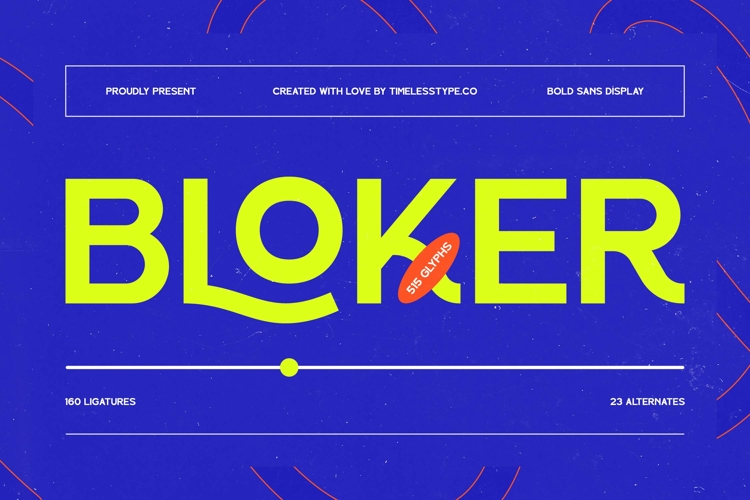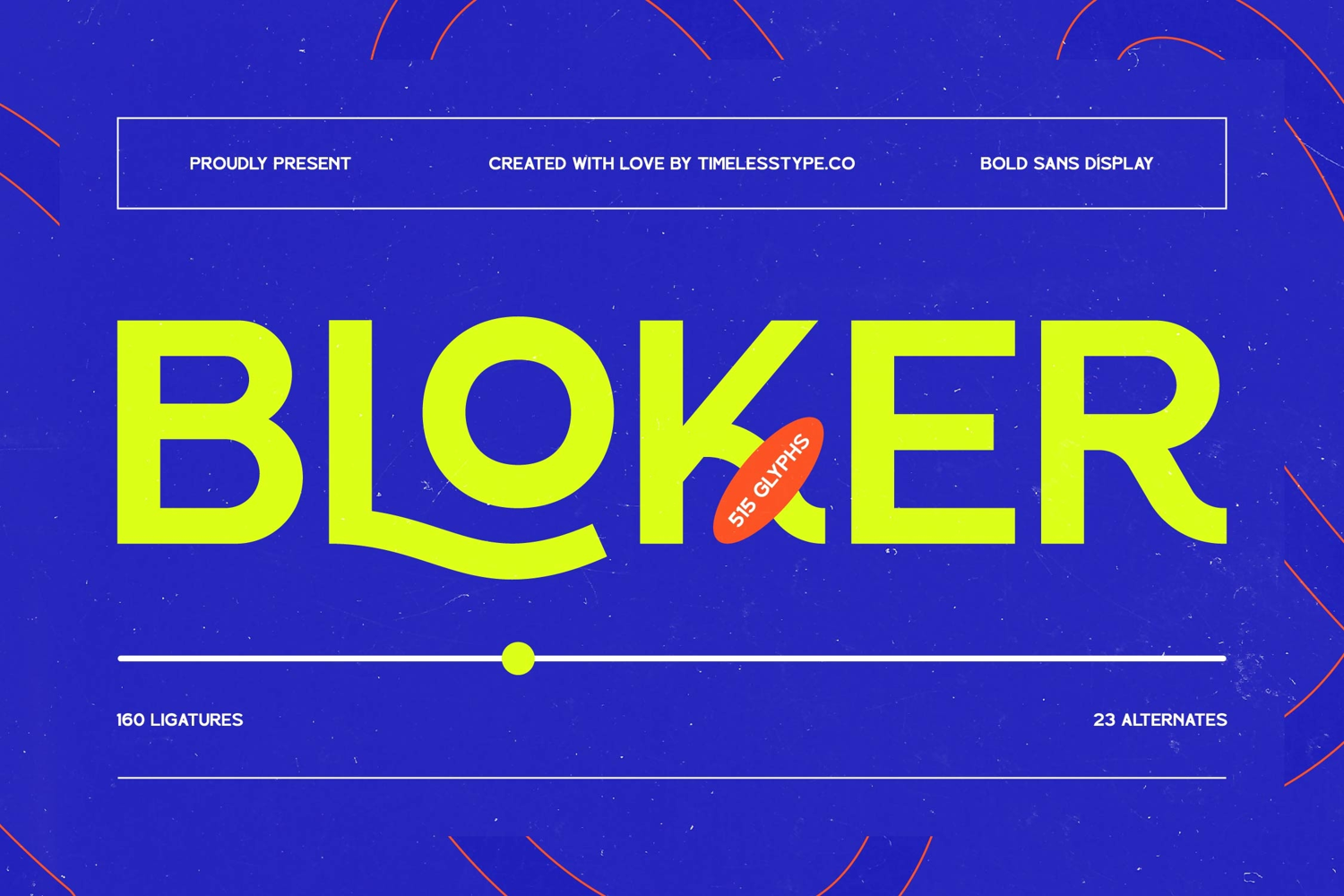
Bloker - Bold Sans Display Font
Bloker - Bold Sans Display Font is designed to command attention and instill a sense of modern authority in every visual communication. This exceptionally crafted bold sans display typeface features a robust, inviting aesthetic with subtly rounded edges that balance its strong presence with approachability. Perfect for creating a memorable visual identity, its clean, contemporary lines and impressive weight ensure your message is not just seen, but felt, making it an indispensable asset for designers seeking immediate impact and distinctive branding.
Unlock unparalleled design flexibility with the comprehensive character set of Bloker - Bold Sans Display Font, boasting an impressive 515 glyphs, 160 ligatures, and 23 alternates. These rich features empower creatives to craft truly unique and expressive typography, ensuring every design is both polished and innovative. With its extensive multilingual support, Bloker - Bold Sans Display Font adapts seamlessly across global markets, making it incredibly versatile for international projects and ensuring your brand resonates worldwide.